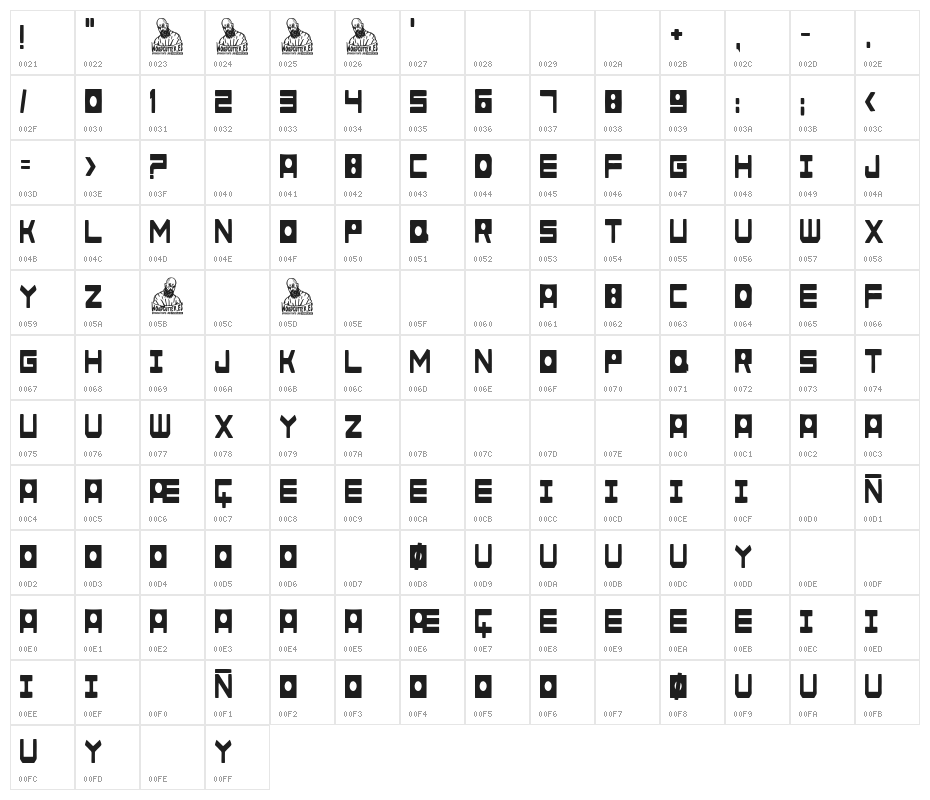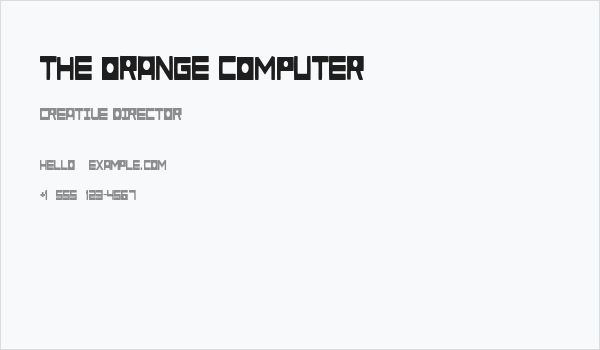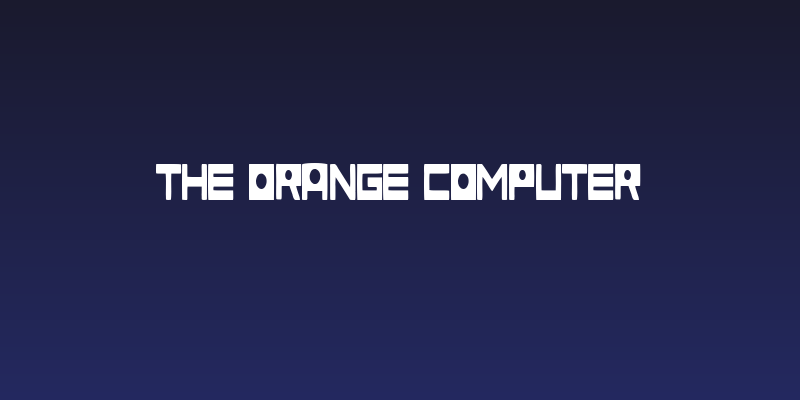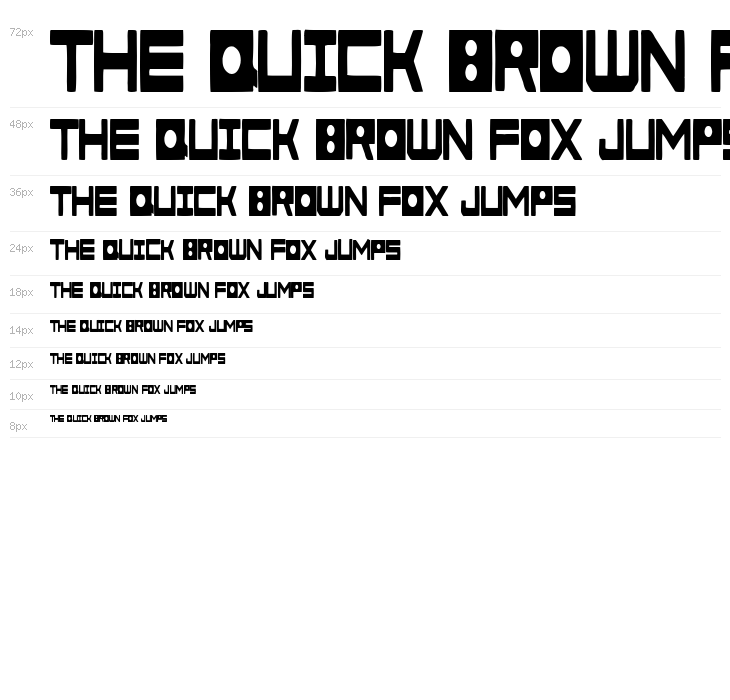
The Orange Computer Font
The Orange Computer Description
A bold, geometric display font with blocky, angular letterforms and minimal curves. The characters have a stencil-like appearance with consistent stroke thickness and squared edges, giving a mechanical and retro-futuristic feel. The font includes uppercase, lowercase, numbers, and select punctuation.
| Overall Style | Retro, Mechanical, Decorative |
| Proposed Projects | Posters, video game titles, tech branding, signage, album covers. |